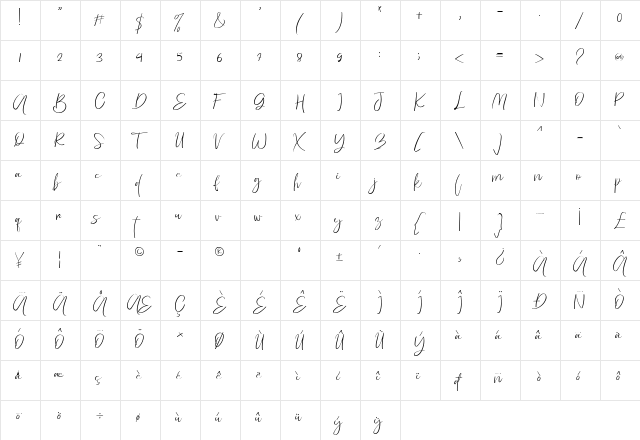
Scotlandis Regular
| Designer | AminMario 2019 |
Design Context for Scotlandis Typeface
Scotlandis is a composed and adaptable typeface that performs quietly and consistently across a wide range of design contexts.